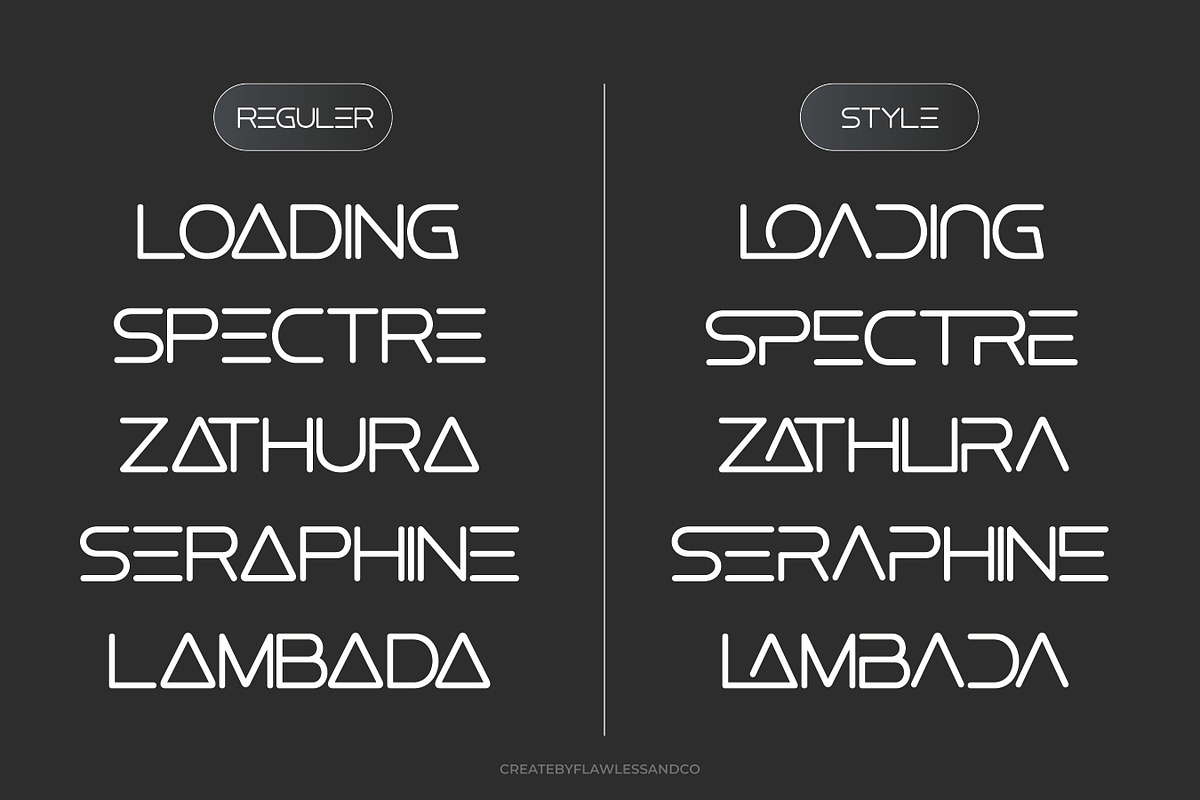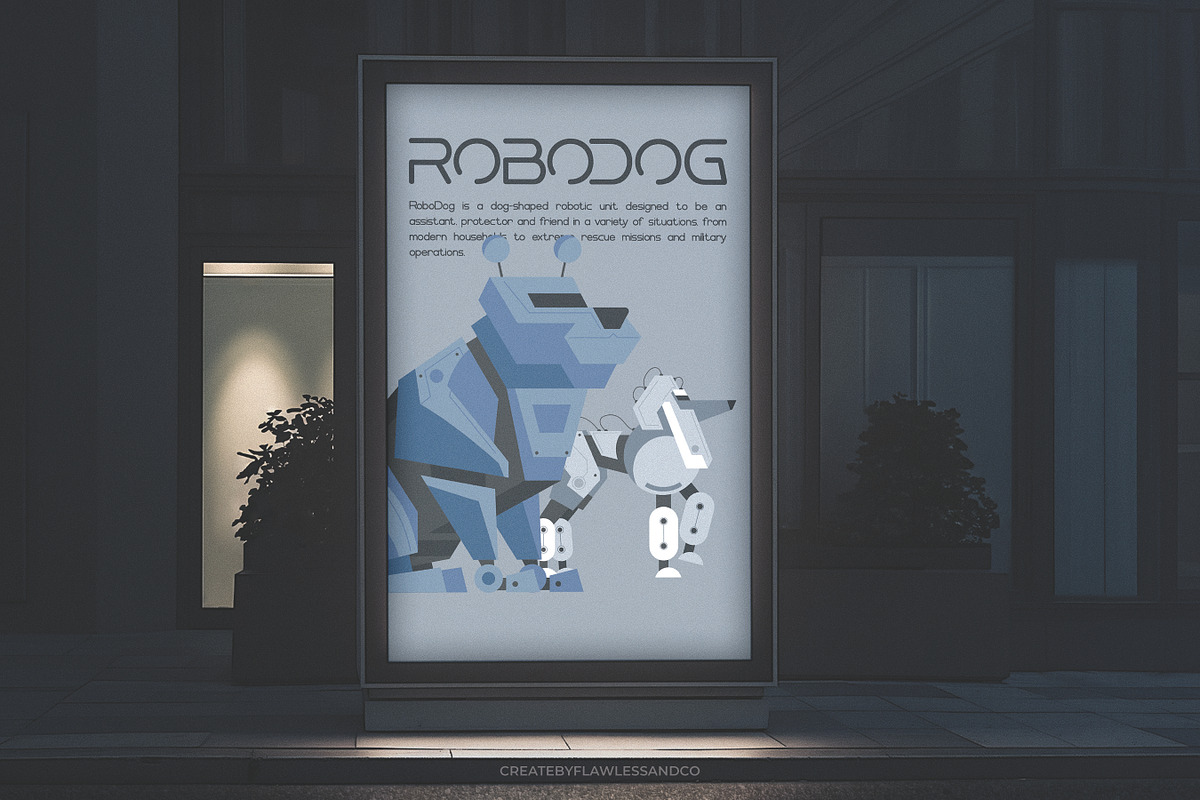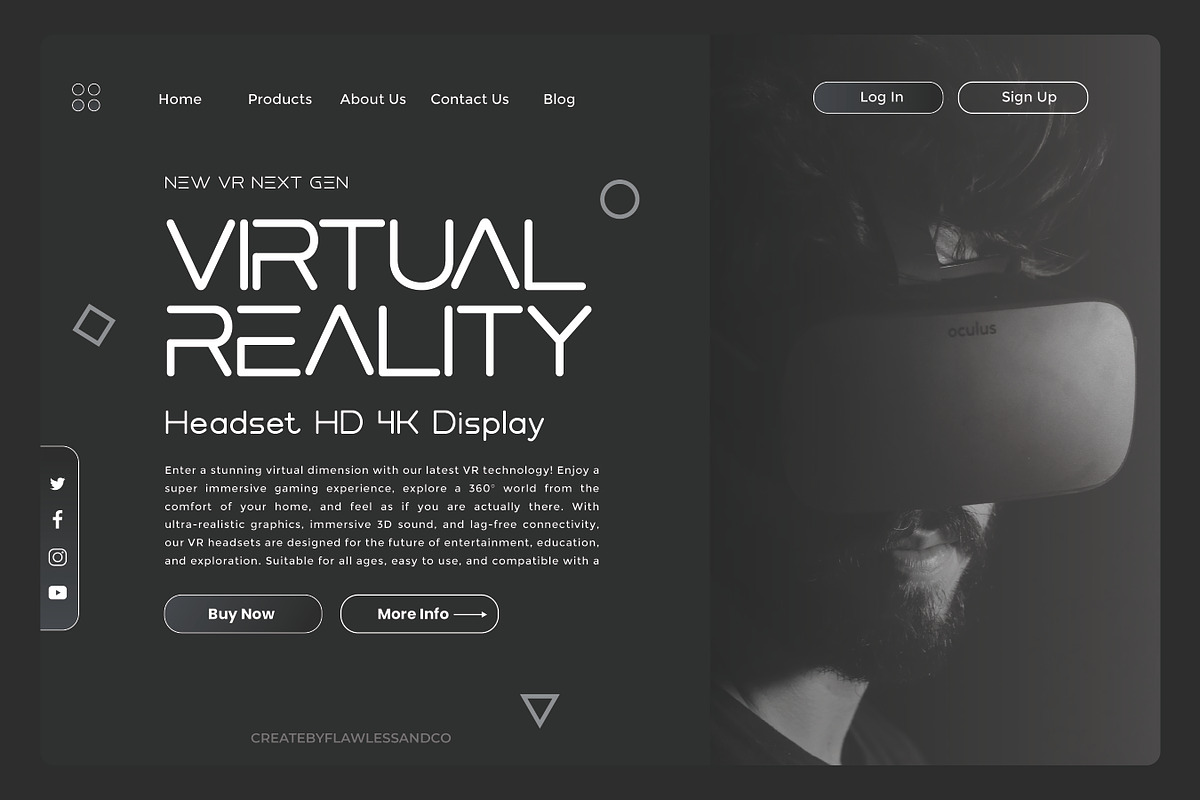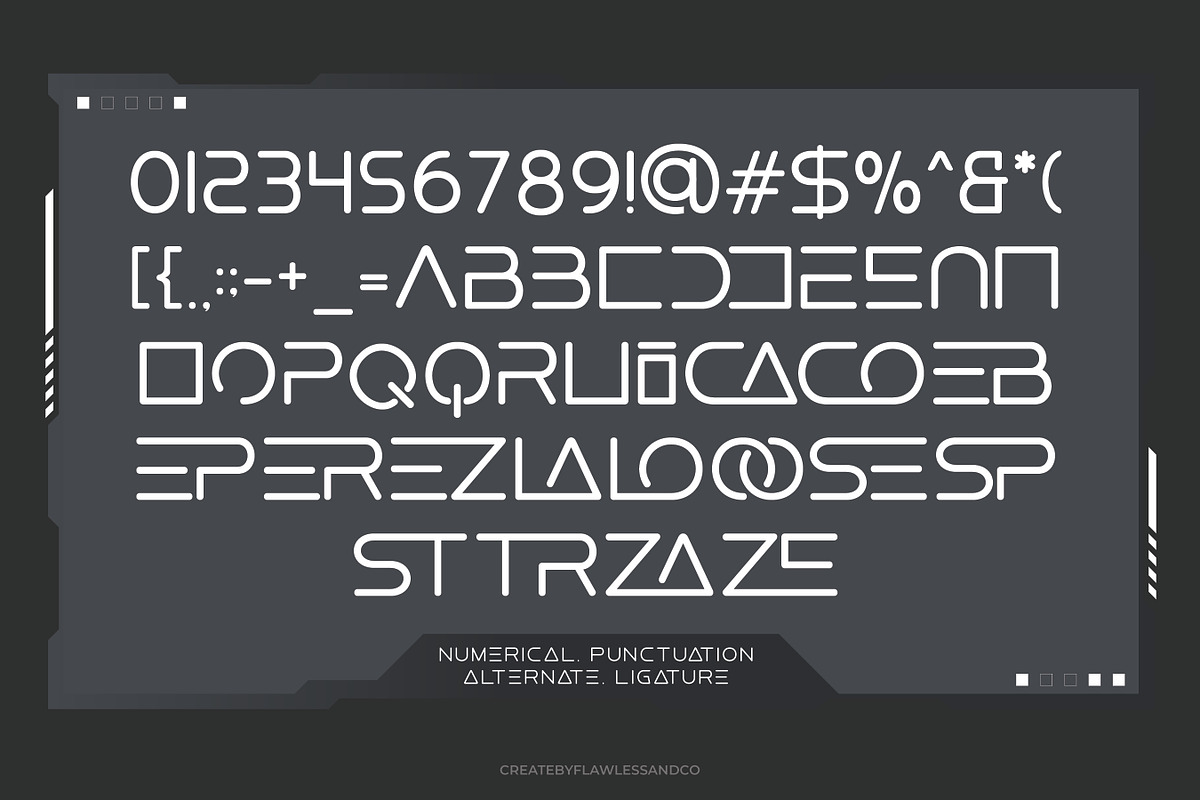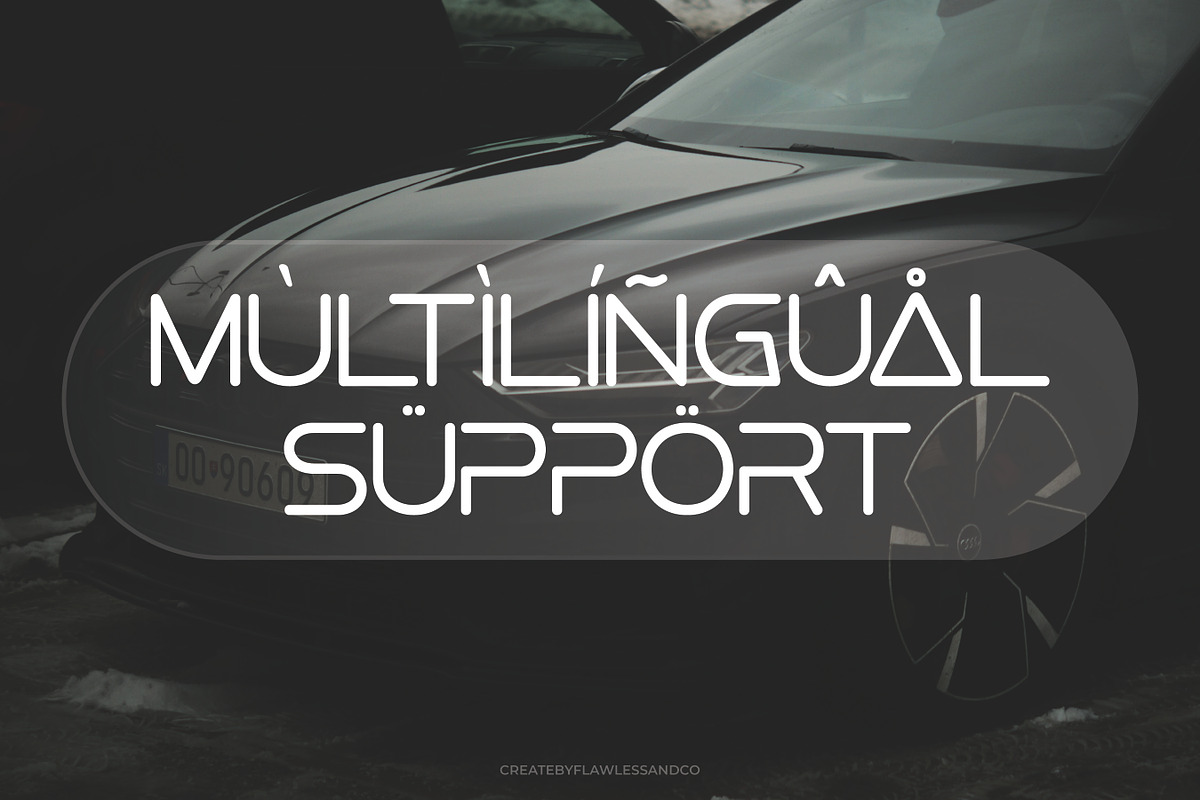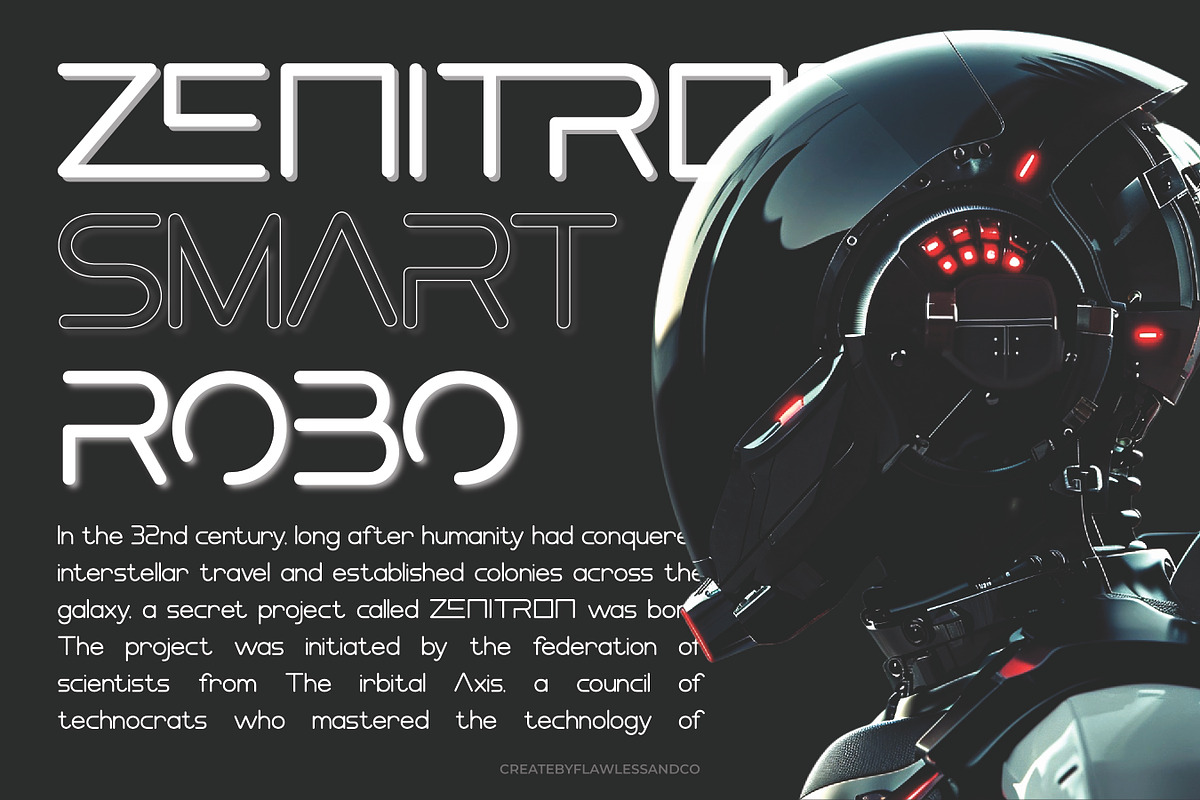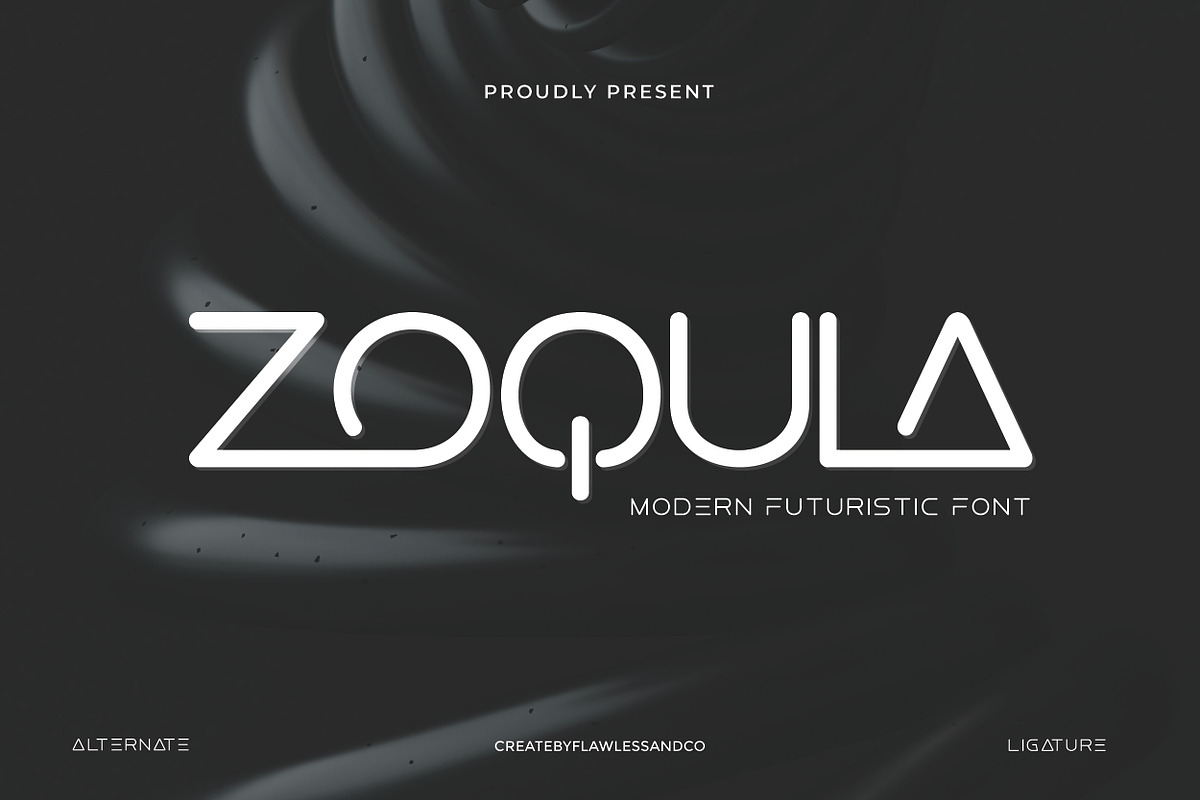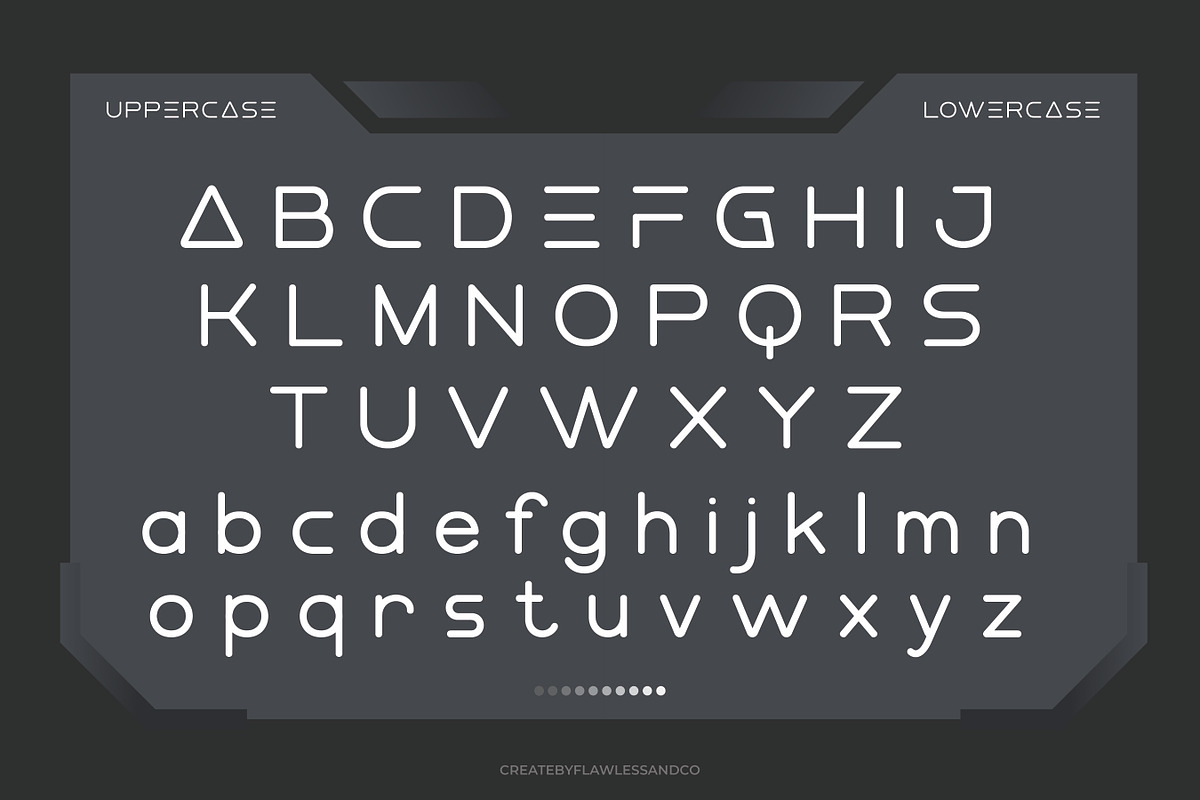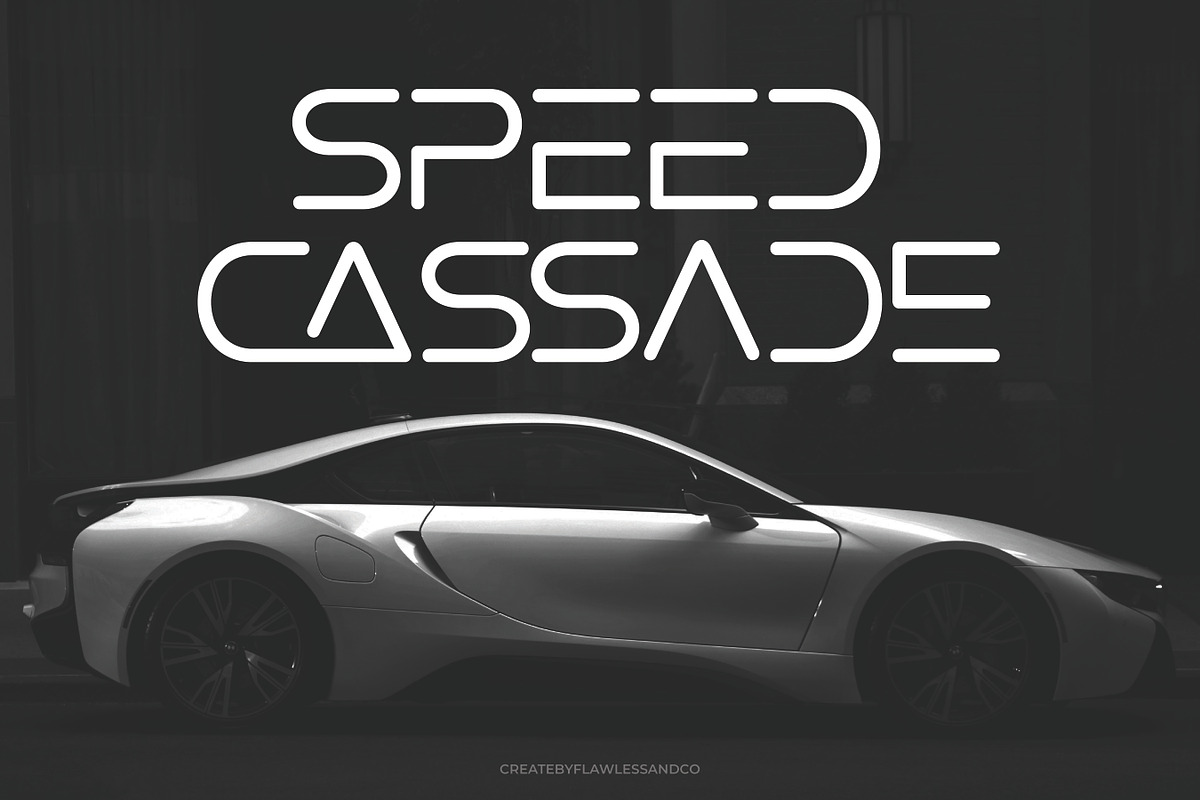
Zoqula – Futuristic Font
Zoqula is a futuristic sans serif font that fuses sleek minimalism with bold sci-fi aesthetics. Inspired by cyberpunk visions and high-tech interfaces, Zoqula features sharp angles, wide letterforms, and a distinct geometric structure that gives it a powerful, modern presence. Designed for digital-forward design projects such as tech branding, game titles, user interfaces, and experimental posters, Zoqula brings a cutting-edge and visionary style to any layout. Every character is shaped with precision and impact, giving your typography a clean yet commanding voice. The font includes dynamic alternates and unique ligatures, allowing you to push your creative boundaries and add futuristic flair to your designs. Features:
Use Zoqula to project innovation, strength, and forward-thinking design in every letterform.
Who Should Use Futuristic Sans Serif Font Zoqula?
Zoqula is made for visionaries, creators, and brands who want to embrace a bold, modern future through design. This font is perfect for:
- Tech startups & digital brands looking for sharp, forward-thinking typography that captures innovation
- Game developers & esports teams who need dynamic, high-impact visuals for logos, titles, and interfaces
- Film & media creators working on sci-fi, cyberpunk, or futuristic themes that demand a striking typeface
- Creative studios & agencies crafting bold branding for modern, tech-savvy clients
- UI/UX designers designing clean, high-tech apps, websites, or dashboards
- Poster & album cover artists seeking a unique, futuristic look that grabs attention and sets the tone
If your project is built around technology, imagination, or a bold vision of what’s next—Zoqula is your go-to font.
A Must-Have Font for Brand and Logo Creators
Zoqula is an essential typeface for designers who specialize in creating standout brand identities and futuristic logo designs. Its bold structure, clean geometry, and sci-fi undertones make it the perfect choice for brands that want to appear innovative, modern, and ahead of the curve. Whether you're working on a cutting-edge tech company, a gaming brand, or a digital product, Zoqula helps your logo and visuals make an instant impact. With its versatile alternates and custom ligatures, you’ll have the creative tools you need to build a brand that feels fresh, bold, and unforgettable. If you're a designer aiming to build tomorrow’s brands today — Zoqula belongs in your font arsenal.
Why Choose Zoqula for Brand and Logo Projects?
Zoqula offers a unique blend of futuristic aesthetics and bold clarity—making it a powerful choice for brand and logo design. Here's why it stands out:
- Striking, Memorable Letterforms Zoqula’s geometric shapes and sharp edges ensure your brand identity leaves a bold and lasting impression.
- Modern & Tech-Driven Vibe Perfect for startups, digital products, and futuristic brands that want to project innovation, confidence, and modernity.
- Customizable with Alternates & Ligatures With a variety of stylistic options, Zoqula gives you the flexibility to craft unique logo marks and wordmarks with a custom feel.
- Versatile Across Mediums Whether it’s on-screen, in print, or across social media, Zoqula maintains its impact and readability—making it highly adaptable for branding systems.
- Bold Simplicity Its clean, sans serif style ensures your logo stays timeless while still feeling fresh and forward-looking. If you're building a brand that’s meant to stand out in a crowded, digital-first world—Zoqula is the smart, stylish choice.